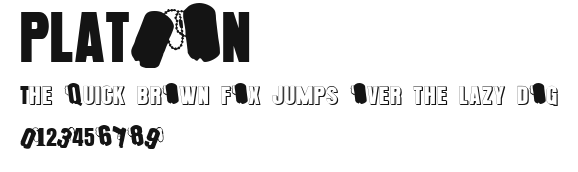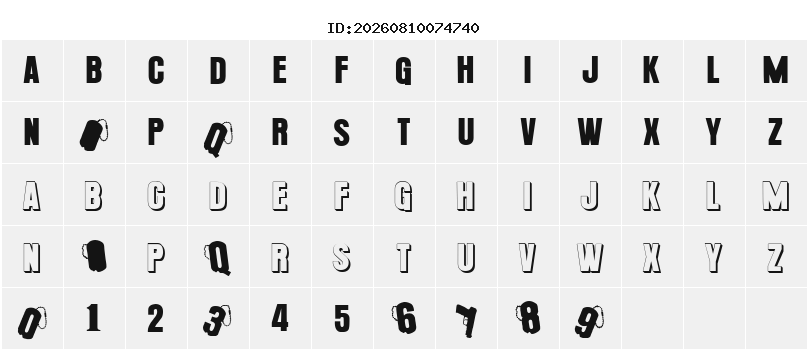
• Font Name: PLATOoN
• Full Font Name: PLATOoN
• PostScript Name: PLATOoN
• Designer: SpideRaY
• Manufacturer: SpideRaY
About PLATOoN.ttf
PLATOoN.ttf is a modern, elegant sans-serif font designed for ultimate readability and visual harmony. Perfect for branding, headlines, web design, and print materials.